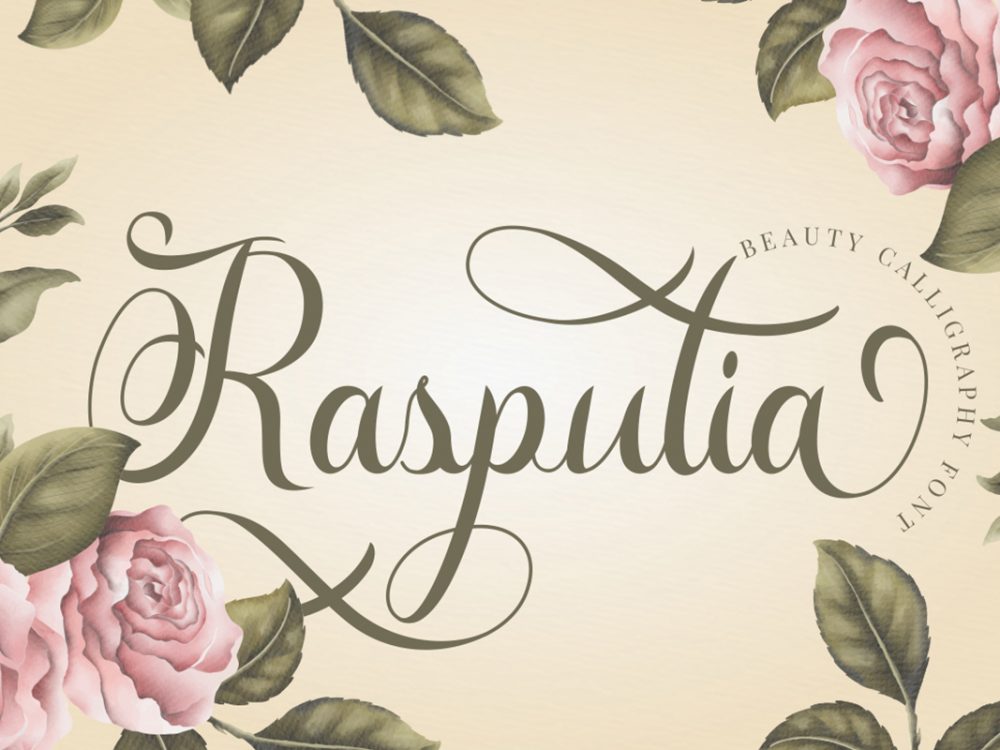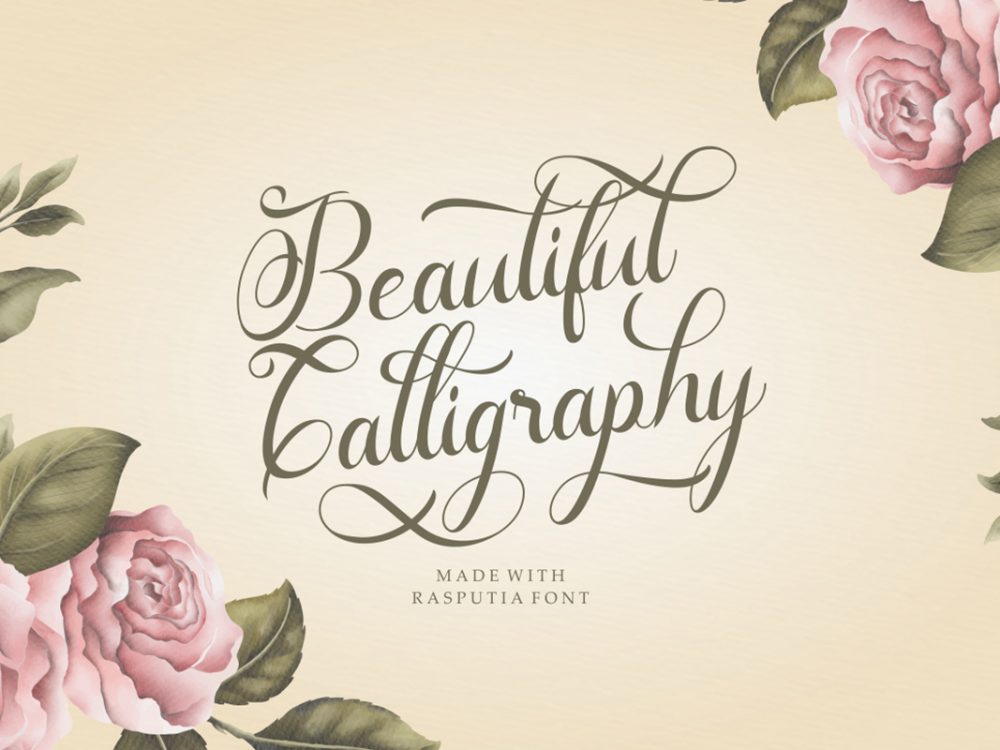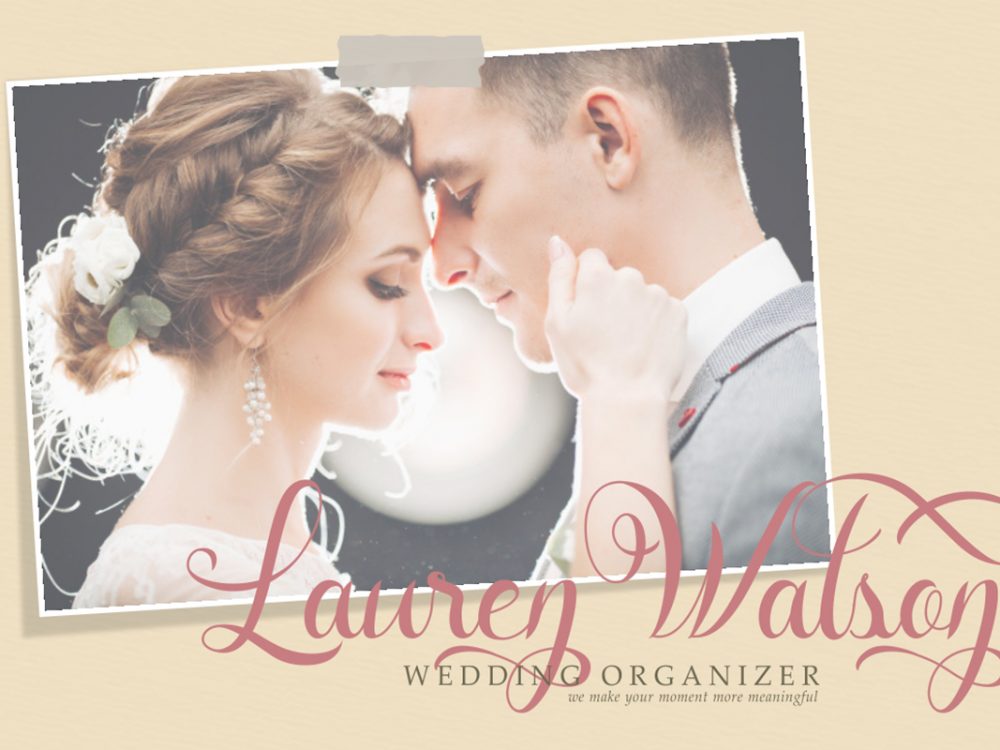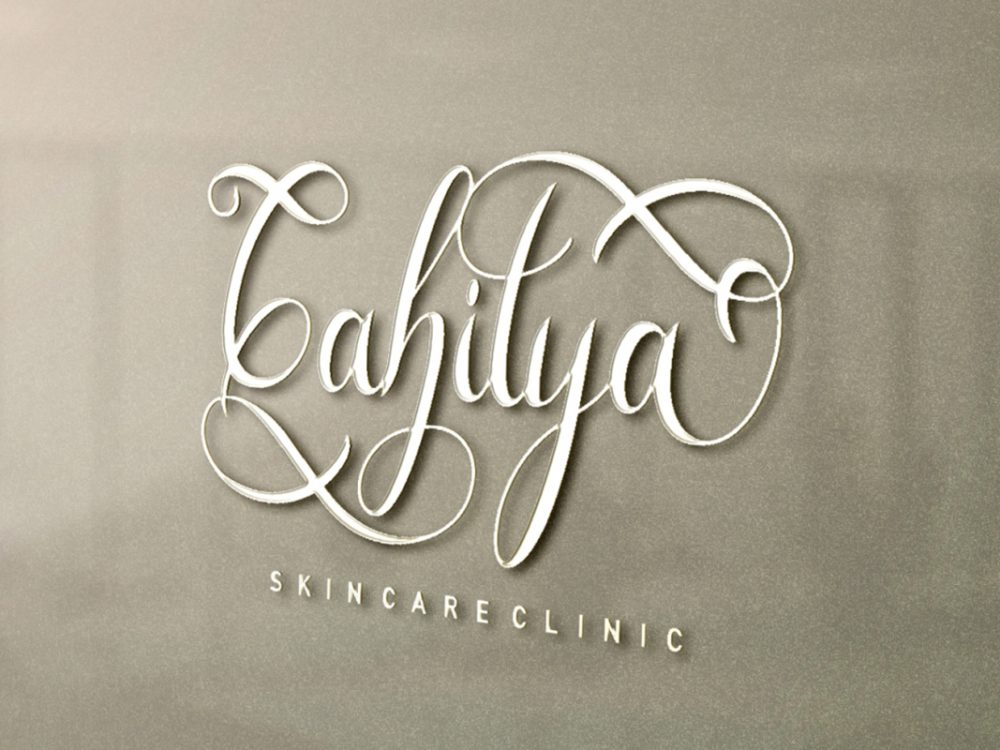
Rasputia Free Font
Rasputia Free Font is an interesting elegant handwritten font that features a modern calligraphic style among other fonts. This font is very well suited for various projects that require a scripted modern curly handwritten font. Use this font to create branding projects, logos, wedding designs, social media posts, advertisements, product packaging, product designs, label, photography, watermark, invitation, stationery, and more. Improve your professional level using this font. If you like it don’t forget to check out the full version.